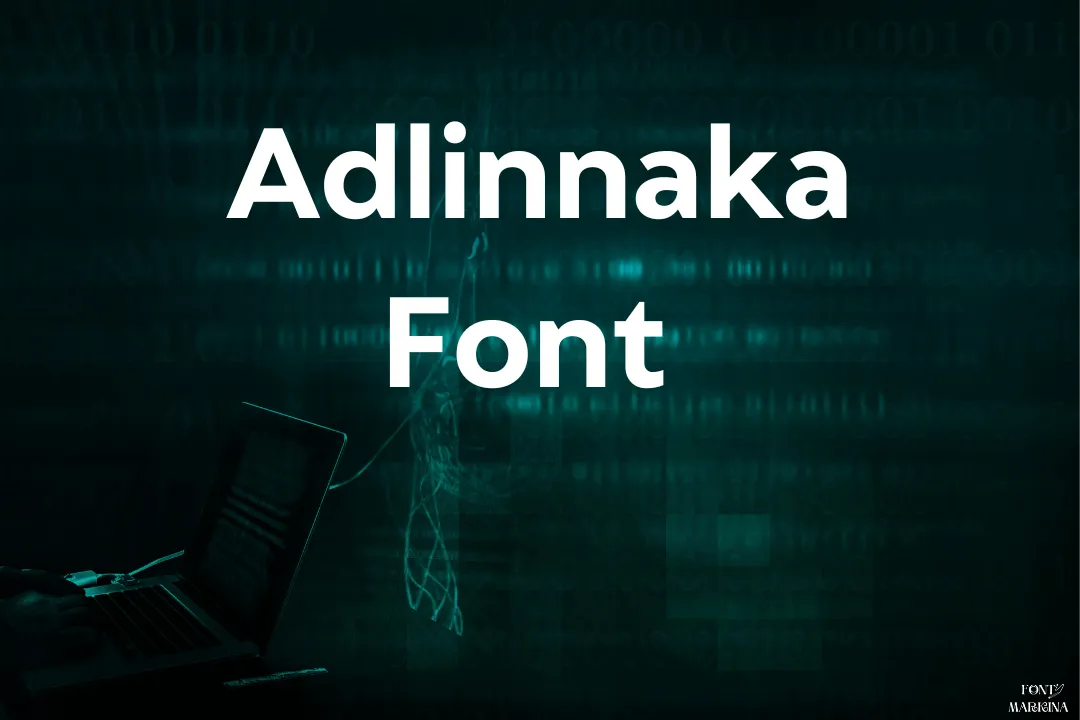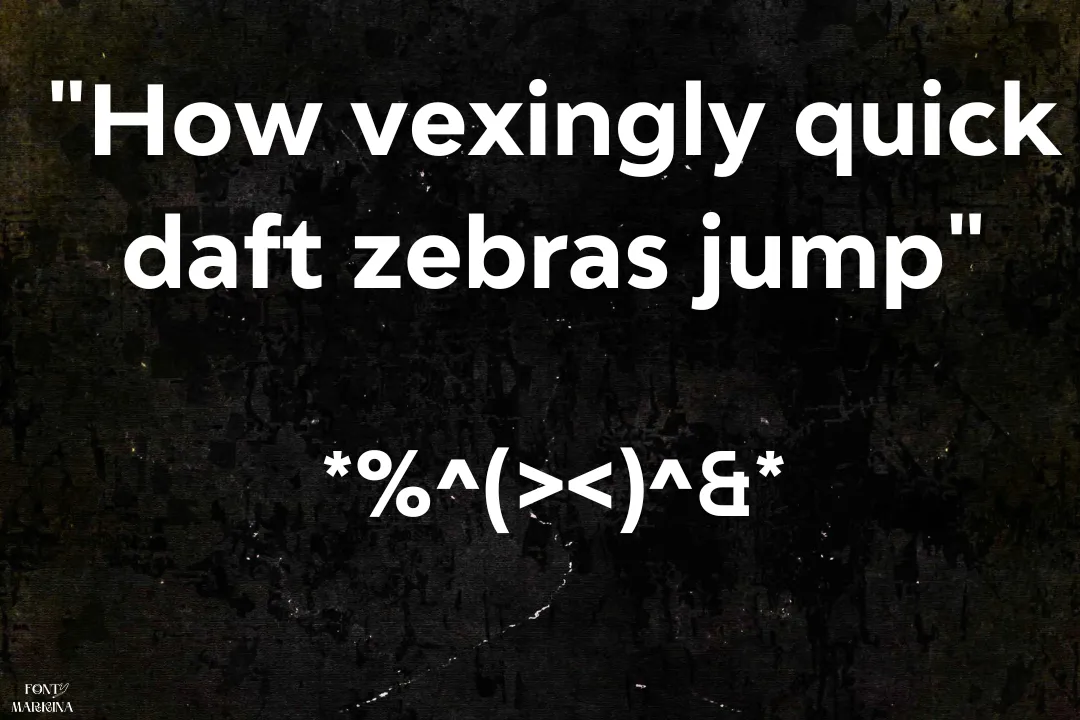
Adlinnaka Font is a contemporary sans-serif font designed by Alexandr Zaytsev. Known for its humanist and geometric design, Adlinnaka achieves a balance between modern aesthetics and functional readability.
This versatile font family comes in multiple widths (Normal, Condensed, and Expanded), each offering nine weights with matching italics, totaling over 50 styles.
These characteristics make it suitable for a wide variety of professional uses, from editorial design to branding, where clarity and adaptability are essential​
Where Can I Use the Adlinnaka Font
It is balanced geometric forms and clean lines make it ideal for digital and print applications, especially in branding, editorial design, and advertising.
Its high x-height and legibility at various weights enhance its readability across web interfaces, posters, and logo designs.
Adlinnaka Font
DesignerHarmnessless Type
StyleSans Serif
Who is the designer of Adlinnaka texture?
The main designer of this unique look font is Harmnessless Type which is a famous font designer. It was designed with three widths and nine weights.